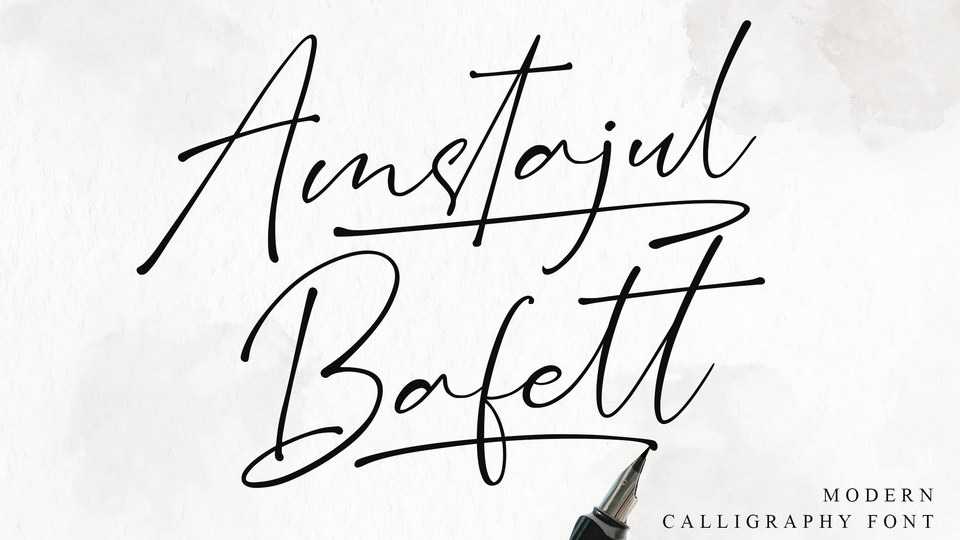
Amstajul Bafett Script Font › Fontesk
Sownload Amstajul Bafett font, a dainty and delicate signature style typeface. It’s the perfect choice for wedding invitations, stationery, photography, social media posts, product packaging, greeting cards, and much more!
Designer: Abas Creative